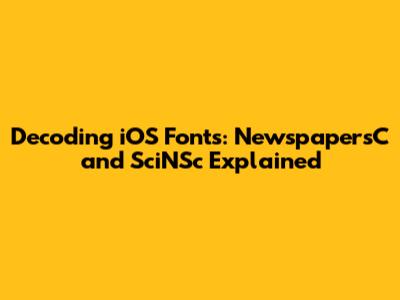
- News Apps: News applications that display Chinese newspapers or news articles might use this font to provide an authentic reading experience.
- Reading Apps: Apps that offer digitized versions of Chinese books or historical documents could employ iOSCNewspapersC to maintain the original look and feel.
- System Fallback: It could also serve as a fallback font for displaying Chinese characters in specific contexts where the primary font doesn't support them adequately.
- Specialized Apps: There might be niche applications focused on Chinese calligraphy or typography that utilize this font for its unique characteristics.
- Character Set: It likely supports a wide range of Chinese characters, including Simplified and Traditional Chinese.
- Glyph Design: The glyphs are probably designed to resemble the typeface used in traditional Chinese newspapers, with specific attention to stroke thickness, serifs, and overall aesthetic.
- Rendering Properties: The font might have specific rendering properties optimized for displaying small text sizes, which is common in newspaper layouts.
- Scientific Apps: Applications focused on scientific research, data analysis, or simulations might use this font to display equations, formulas, and scientific symbols.
- Educational Apps: Educational apps that teach mathematics, physics, or chemistry could utilize SciNSc to present equations and formulas in a clear and readable format.
- Financial Apps: Financial applications that display complex numerical data or financial formulas might benefit from using SciNSc to ensure accurate rendering of numbers and symbols.
- Specialized Keyboards: It could be part of a specialized keyboard layout designed for inputting scientific or mathematical symbols.
- Character Set: It likely includes a comprehensive set of scientific symbols, mathematical operators, Greek letters, and numerical digits.
- Glyph Design: The glyphs are probably designed to be clear and unambiguous, with careful attention to the spacing and alignment of symbols and numbers.
- Rendering Properties: The font might have specific rendering properties optimized for displaying subscripts, superscripts, and other formatting elements commonly used in scientific notation.
Hey guys! Ever stumbled upon some weird font names in your iOS settings or while tinkering with your iPhone or iPad? Today, we're diving deep into two intriguing ones: iOSCNewspapersC and SciNSc. These aren't your everyday Arial or Times New Roman, and understanding them can actually give you a better grasp of how iOS handles fonts and text rendering. So, buckle up, and let's get nerdy with fonts!
Understanding iOS Fonts
Before we dissect iOSCNewspapersC and SciNSc, it's essential to have a foundational understanding of how iOS manages fonts. Unlike desktop operating systems like Windows or macOS, iOS has a more controlled environment. Apple tightly regulates the fonts available on its devices to ensure consistency and performance across the board. This control extends to system fonts used in the user interface and apps.
System Fonts in iOS
System fonts are the fonts that iOS uses for its UI elements, such as menus, buttons, and labels. Apple's current system font is San Francisco, a clean and modern typeface designed for readability on screens. However, iOS has evolved, and older versions used different system fonts. Understanding the historical context of system fonts helps in appreciating why certain font names like iOSCNewspapersC might appear.
Font Rendering and Fallbacks
iOS uses sophisticated font rendering techniques to ensure text looks sharp and clear on its displays. Font rendering involves converting the vector-based font outlines into rasterized images that can be displayed on the screen. Additionally, iOS employs font fallback mechanisms. If a specific font is not available or doesn't contain a particular character, the system will automatically switch to a fallback font that does. This ensures that text is always displayed, even if the preferred font is missing.
Custom Fonts in Apps
While iOS tightly controls system fonts, developers can include custom fonts in their apps. This allows for greater design flexibility and branding opportunities. However, using custom fonts comes with its own set of challenges, such as ensuring the font is properly licensed and optimized for performance.
Delving into iOSCNewspapersC
Alright, let's get to the juicy stuff. What exactly is iOSCNewspapersC? The "C" in the name hints that this is related to Chinese Newspapers, but it's not that simple. The "iOS" prefix tells us it's an iOS-specific font, likely used in contexts related to displaying Chinese newspaper content, and it is safe to assume that this font supports Chinese characters. It's possible that this font is a specialized typeface designed to render Chinese text in a way that mimics the appearance of traditional newspapers.
Possible Use Cases